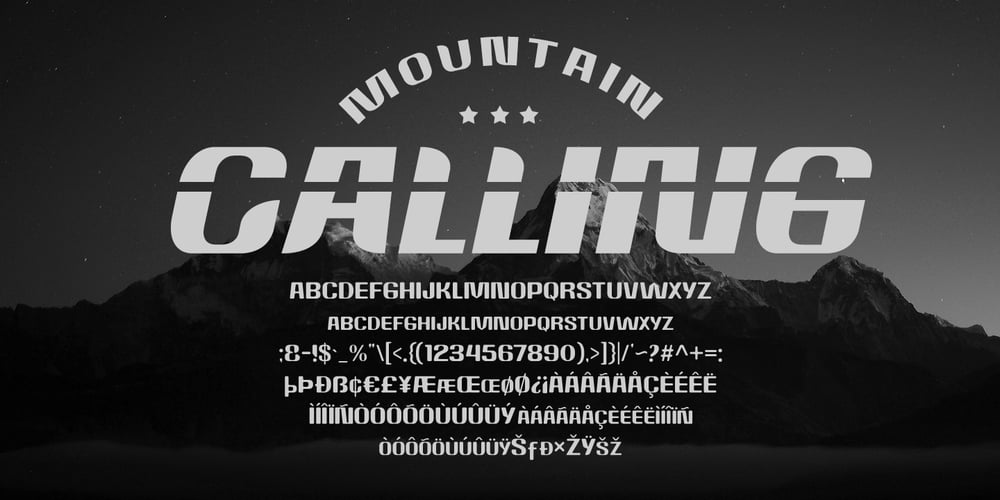
Rockrace Font Family was designed by Ahmad Ramzi Fahruddin and published by Arterfak Project. Rockrace contains 3 styles and family package options. Introducing our new item, “Rockrace”. The font set which has 3 different styles that you can combine it as a headline, subheadline, and tagline. The techno style has a negative space in the middle letters, gives a modern touch. Suitable for sport, techno and minimalist theme.